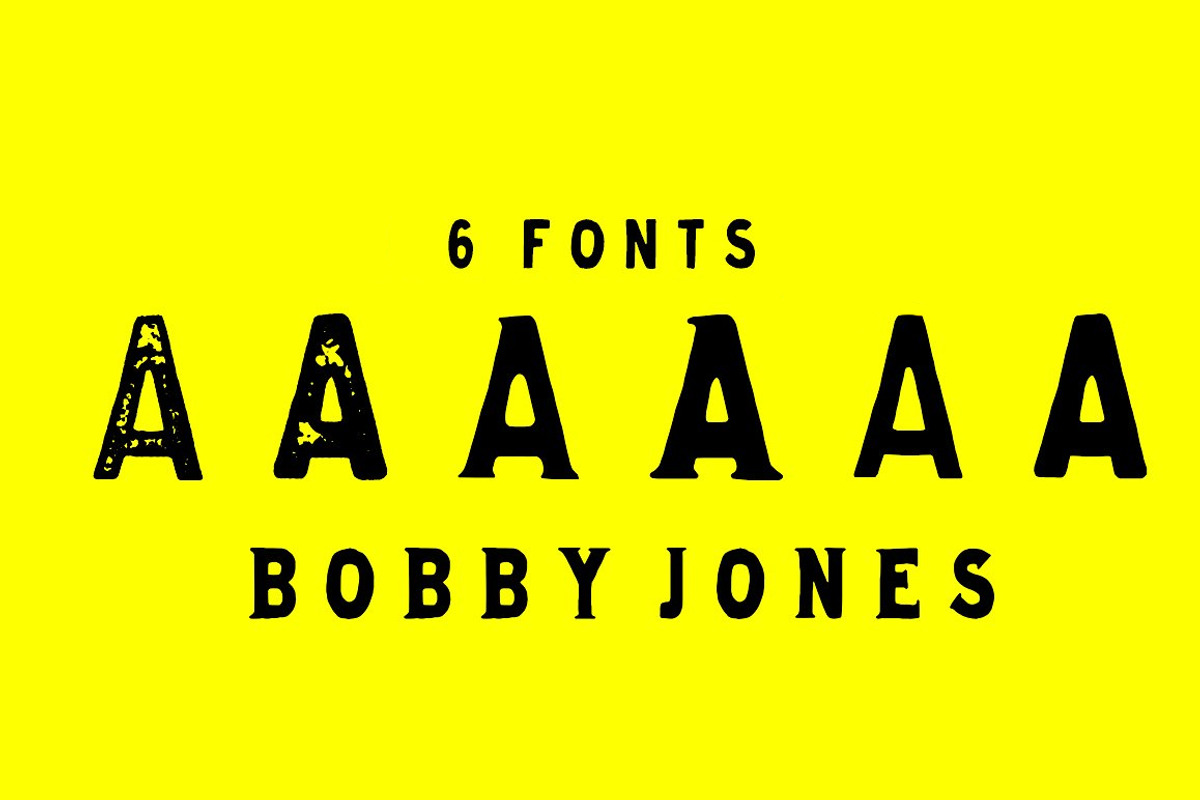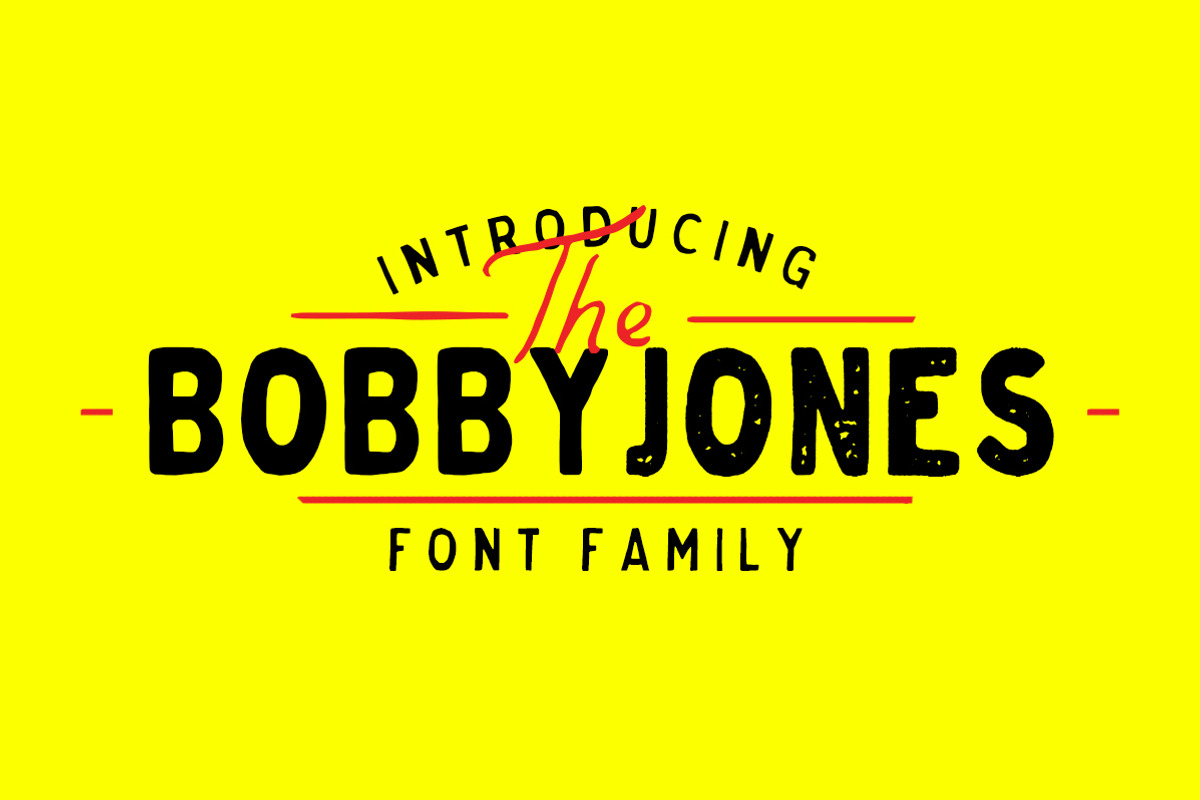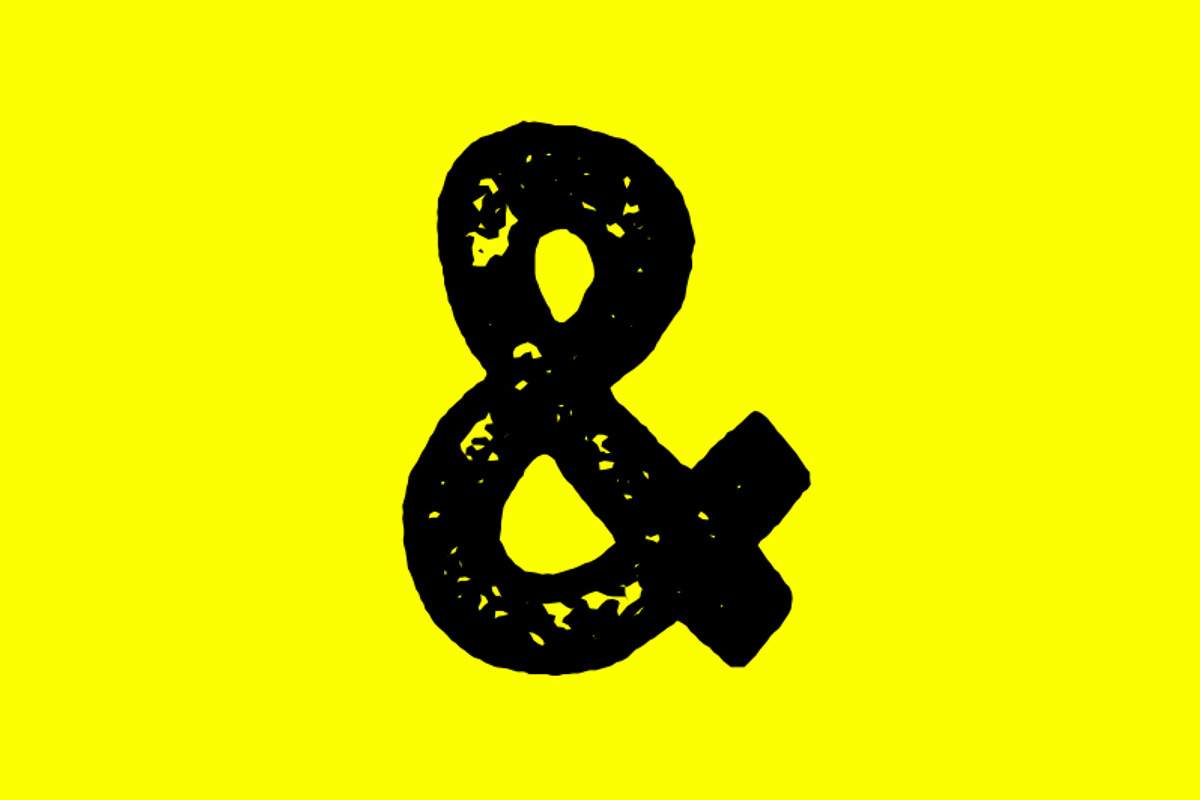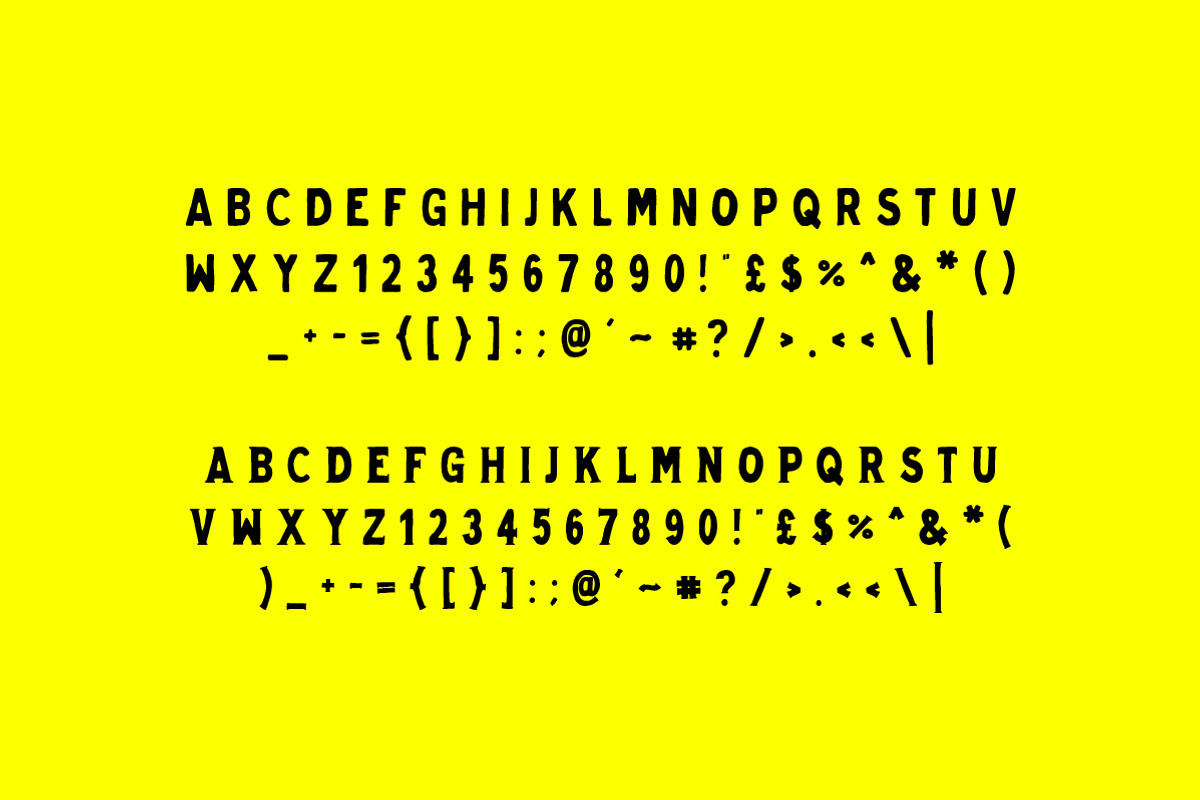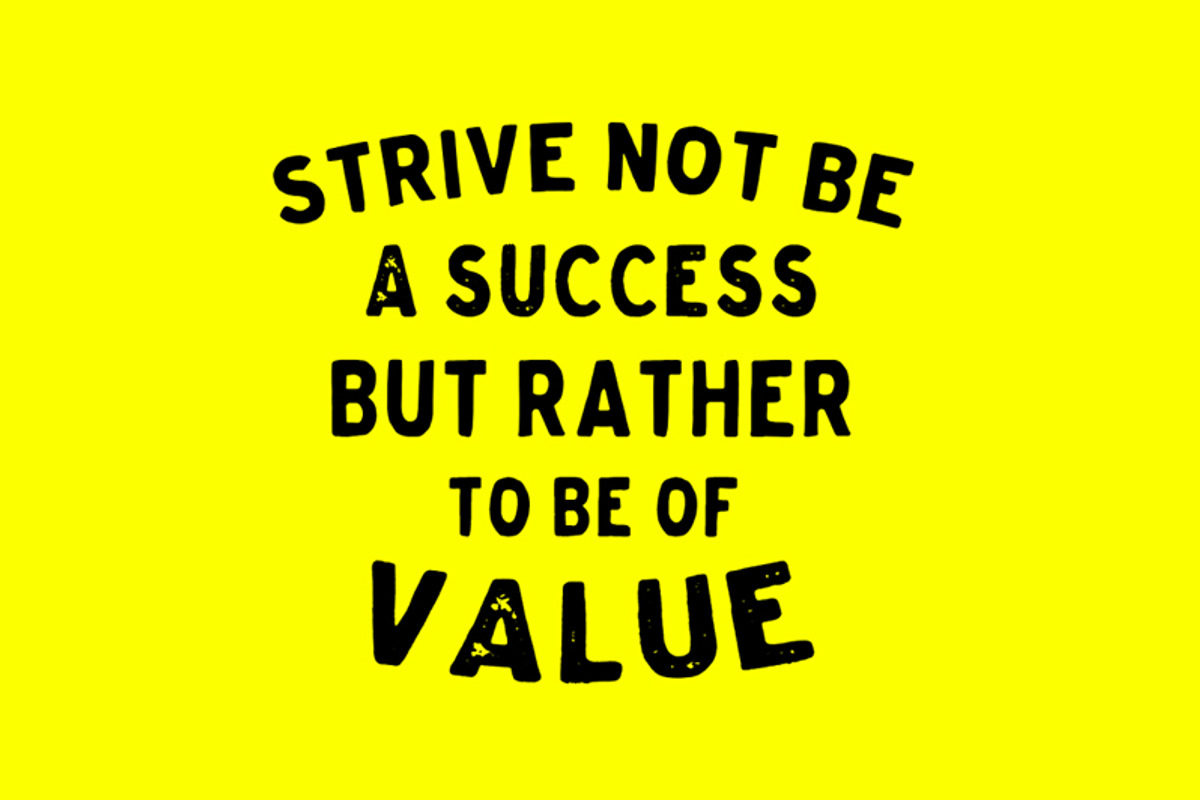
Bobby Jones Font Bundle
Bobby Jones was the first font I ever sold and is one of the primary reasons as to why I continued with font design. 1 week after its launch, a brand that we are all familiar with snapped it up for an international campaign - this was all the motivation and validation I needed to design more!
Bobby's purpose was to be loud and proud and to stand out from the crowd with a distinct, handcrafted personality, and it turned out great!